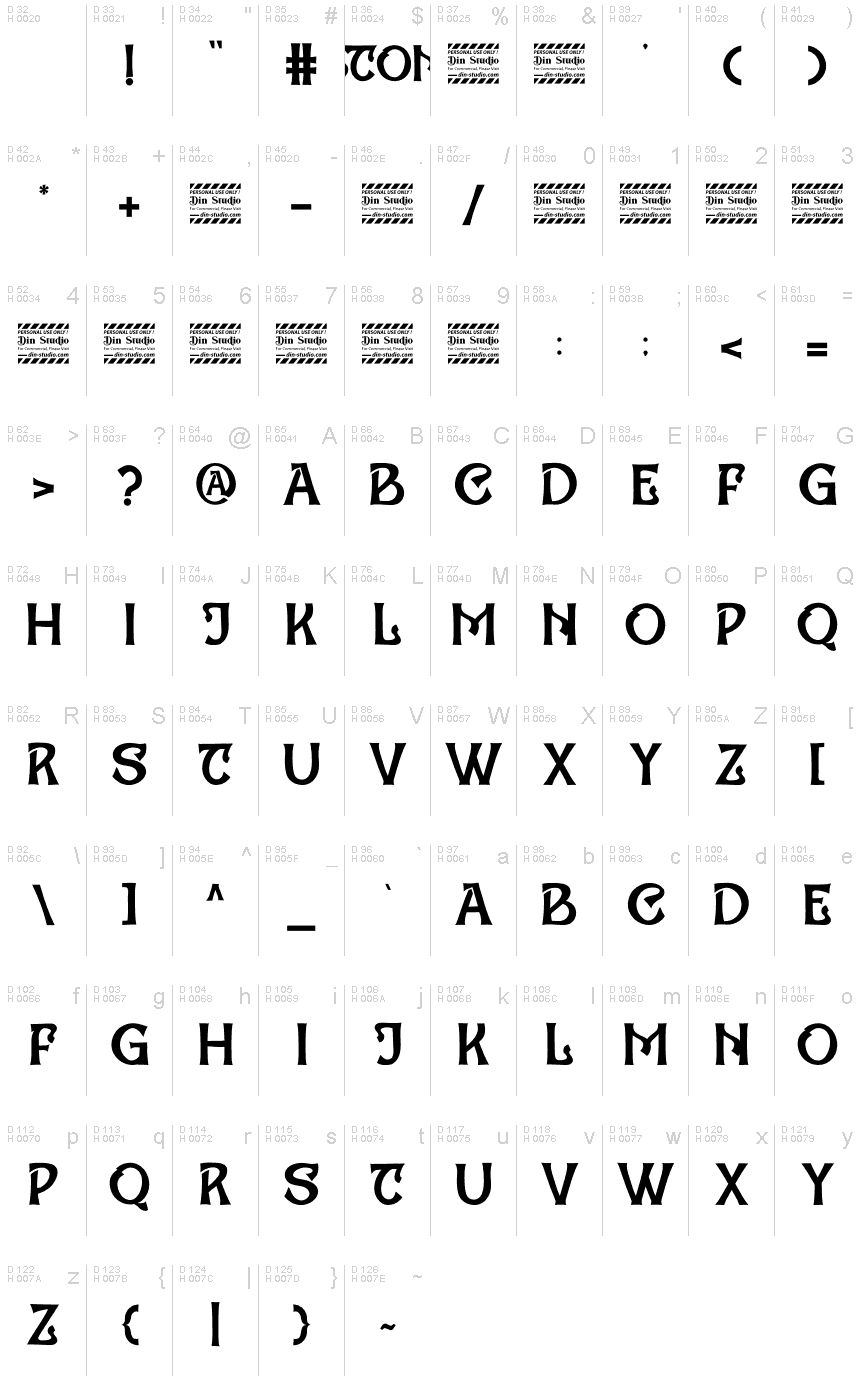
Lastones Personal Use
Lastones, designed by Din Studio, is the perfect display font for projects that require a touch of vintage style. Its unique and bold lettering captures the essence of classic typography, making it perfect for branding, logo design, or even editorial layouts. Lastones' semi-bold typeface and wide width make it easy to read while maintaining its distinctiveness. Whether you're creating a poster for a music festival or designing packaging for an artisanal product, Lastones is sure to stand out and leave a lasting impression. Add some retro flair to your next project with Lastones!